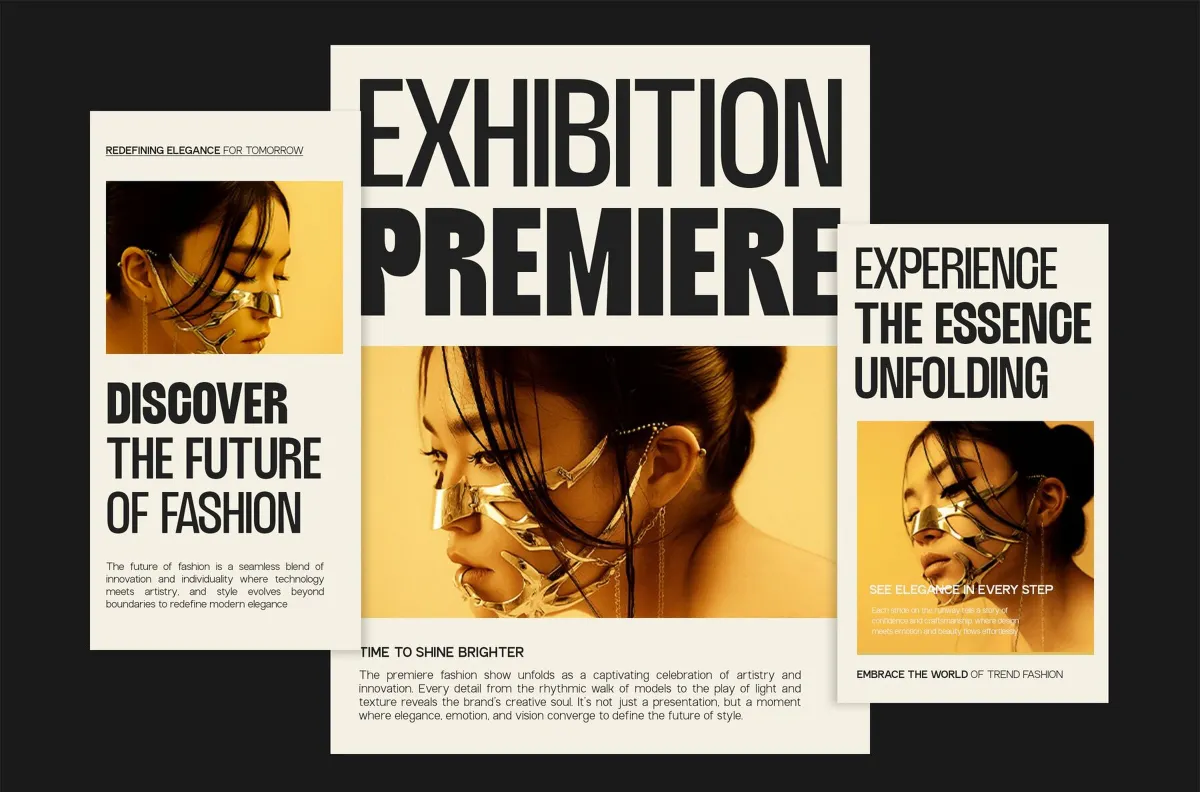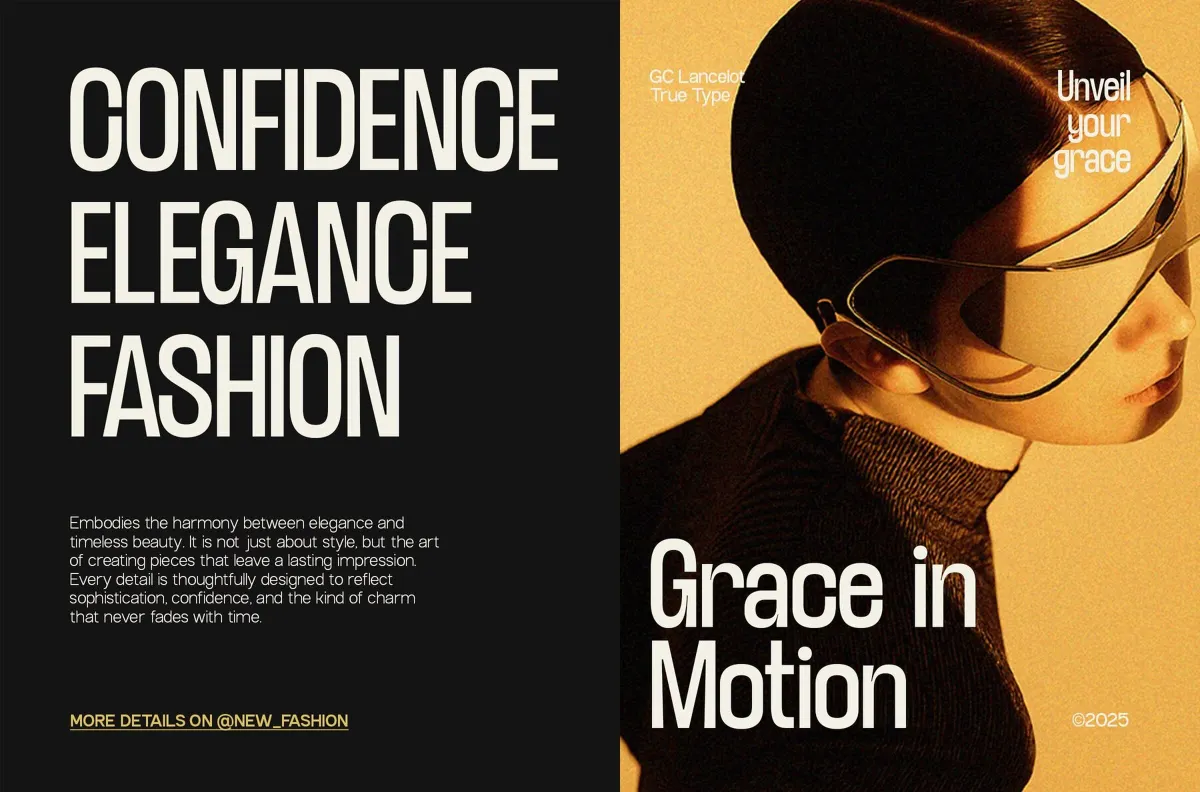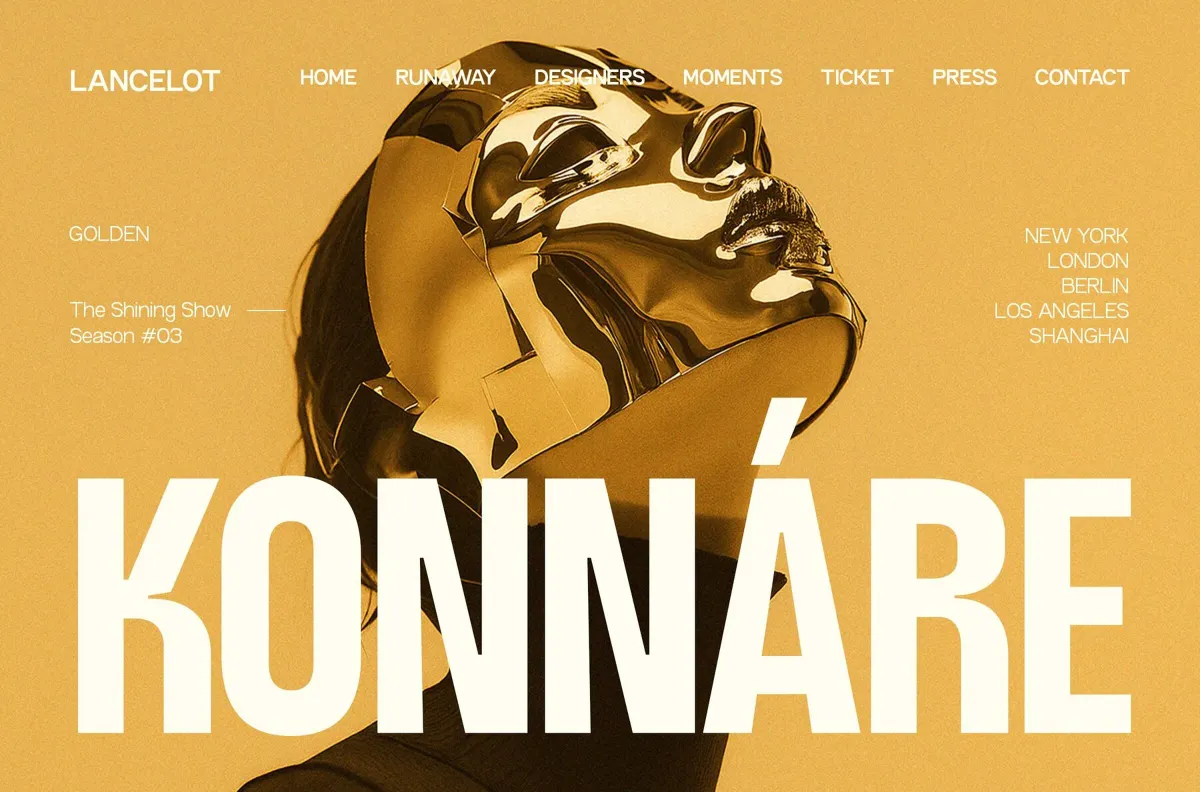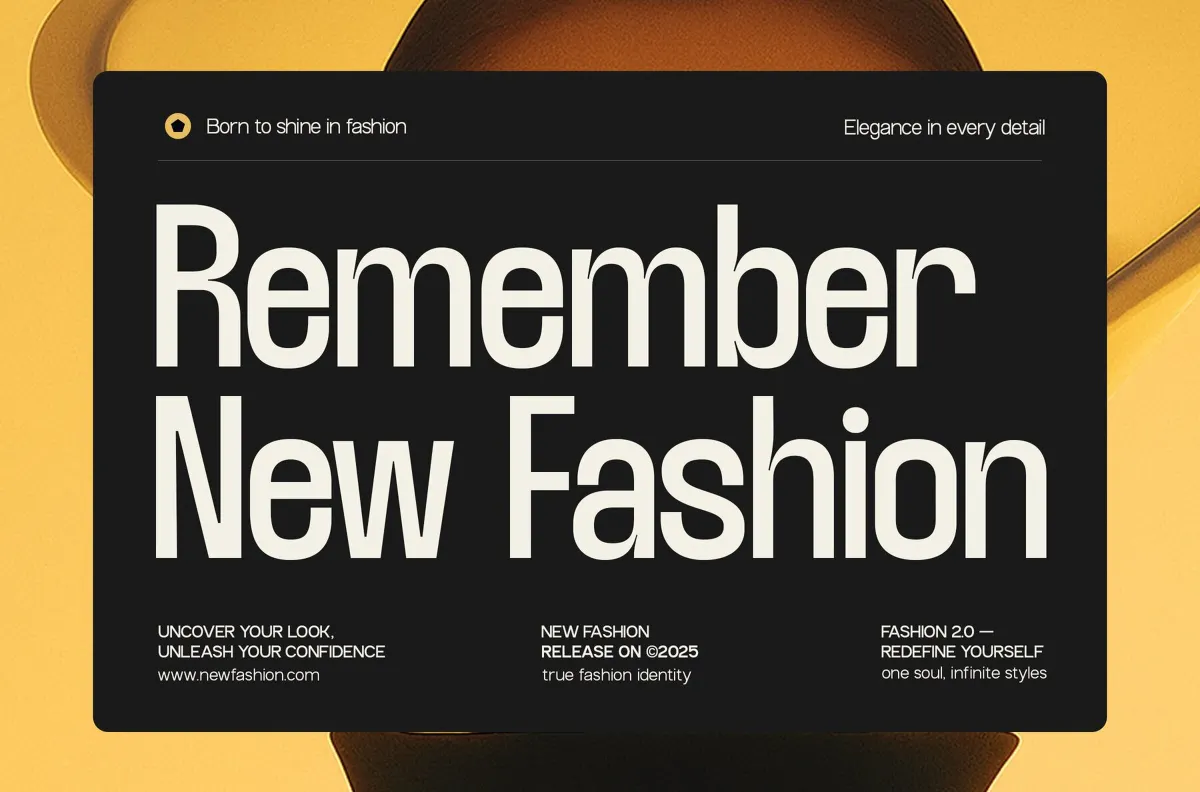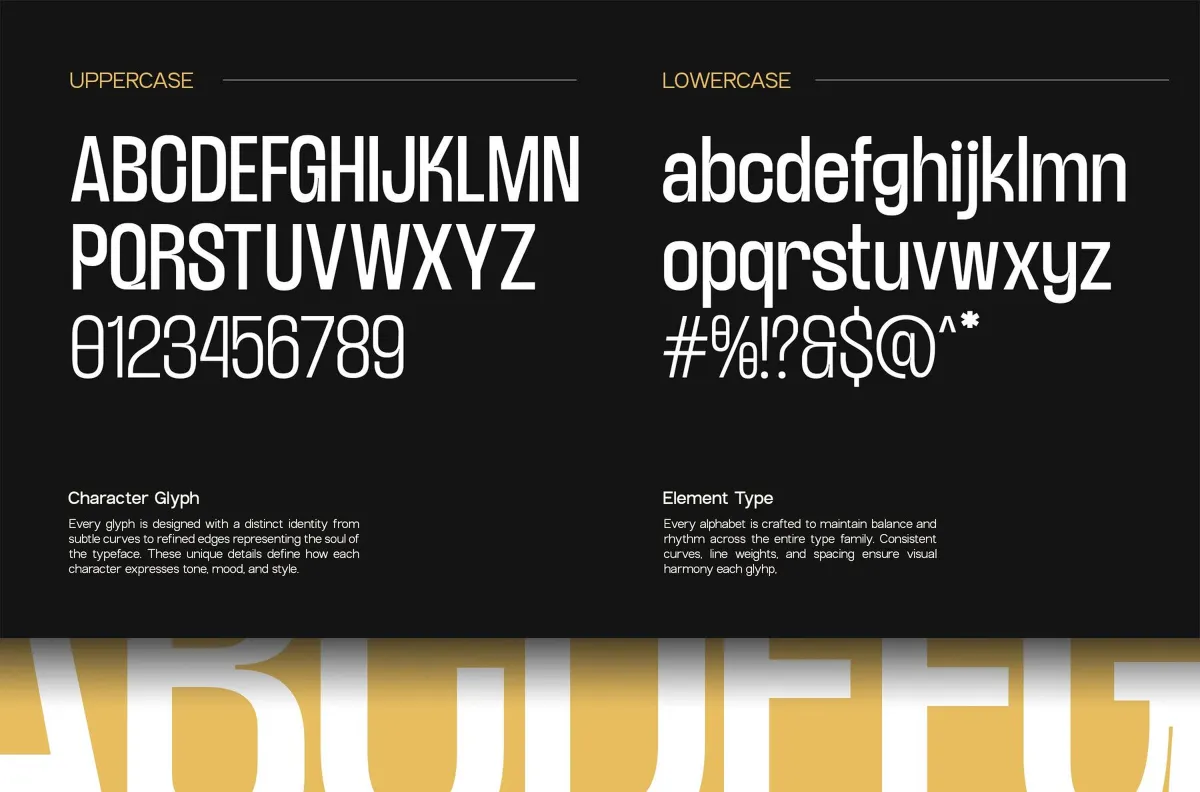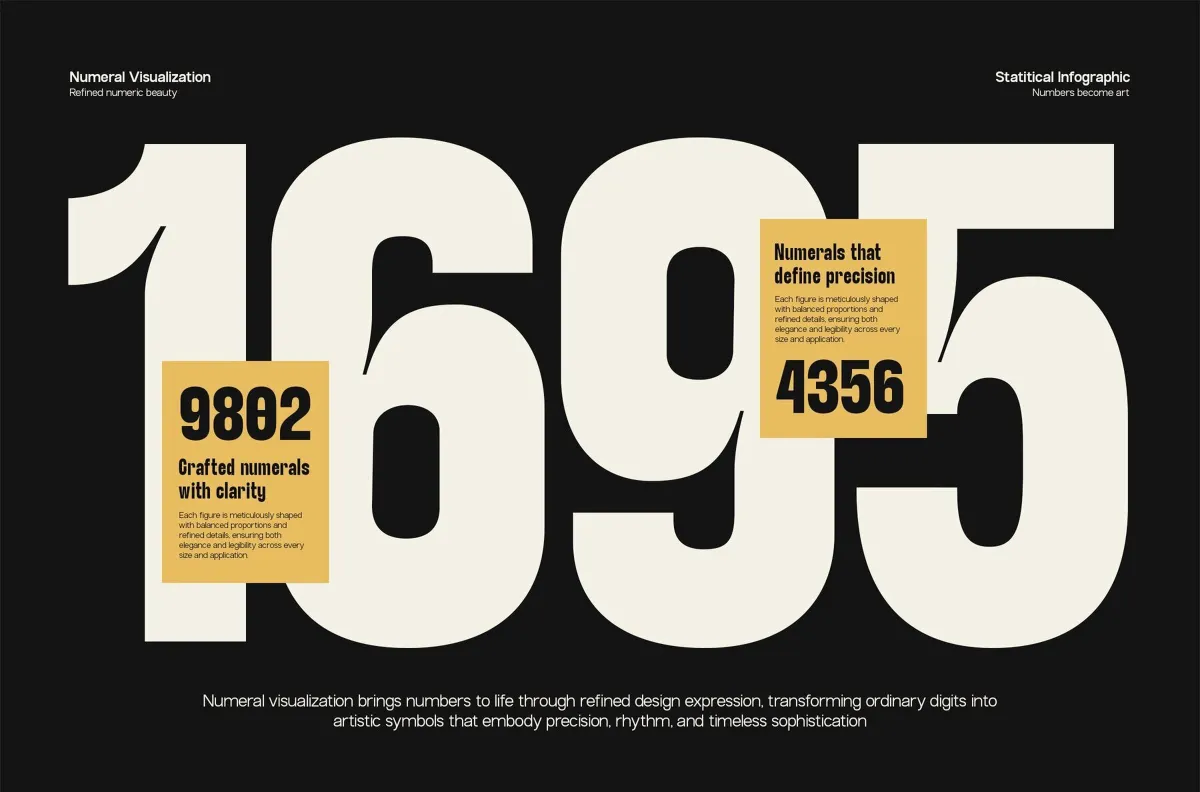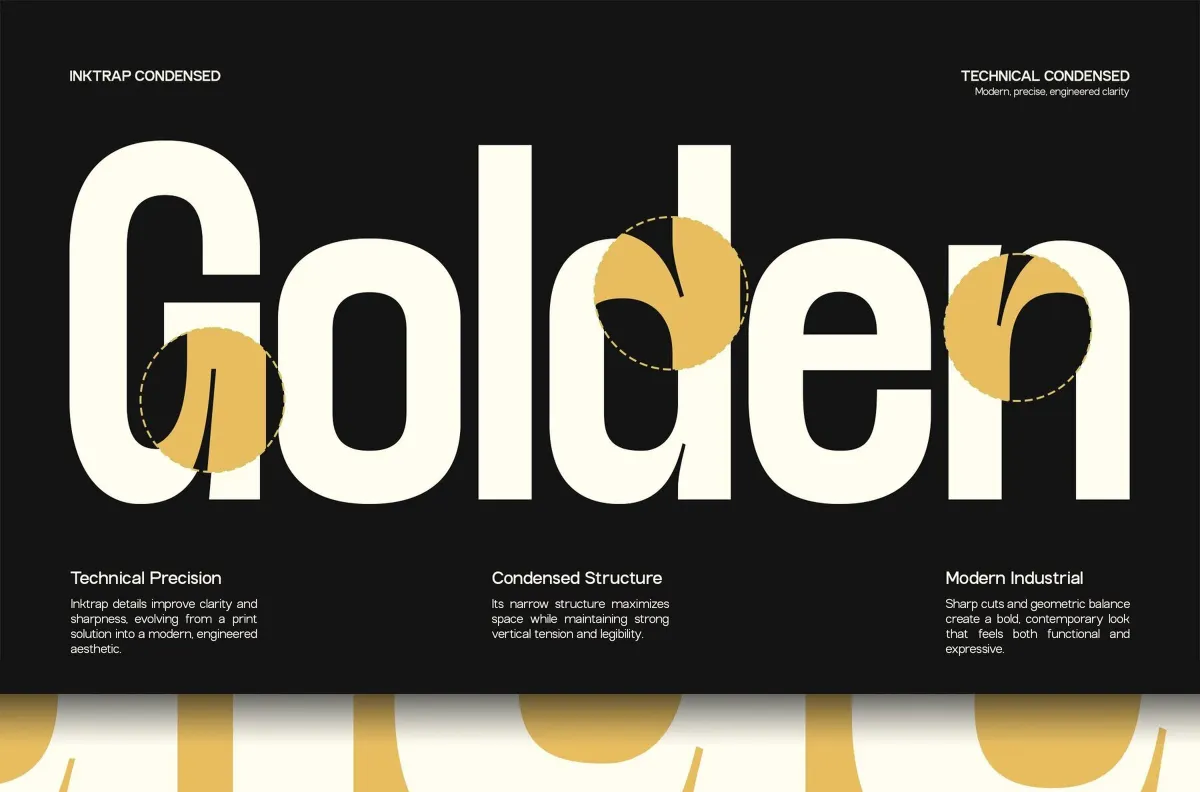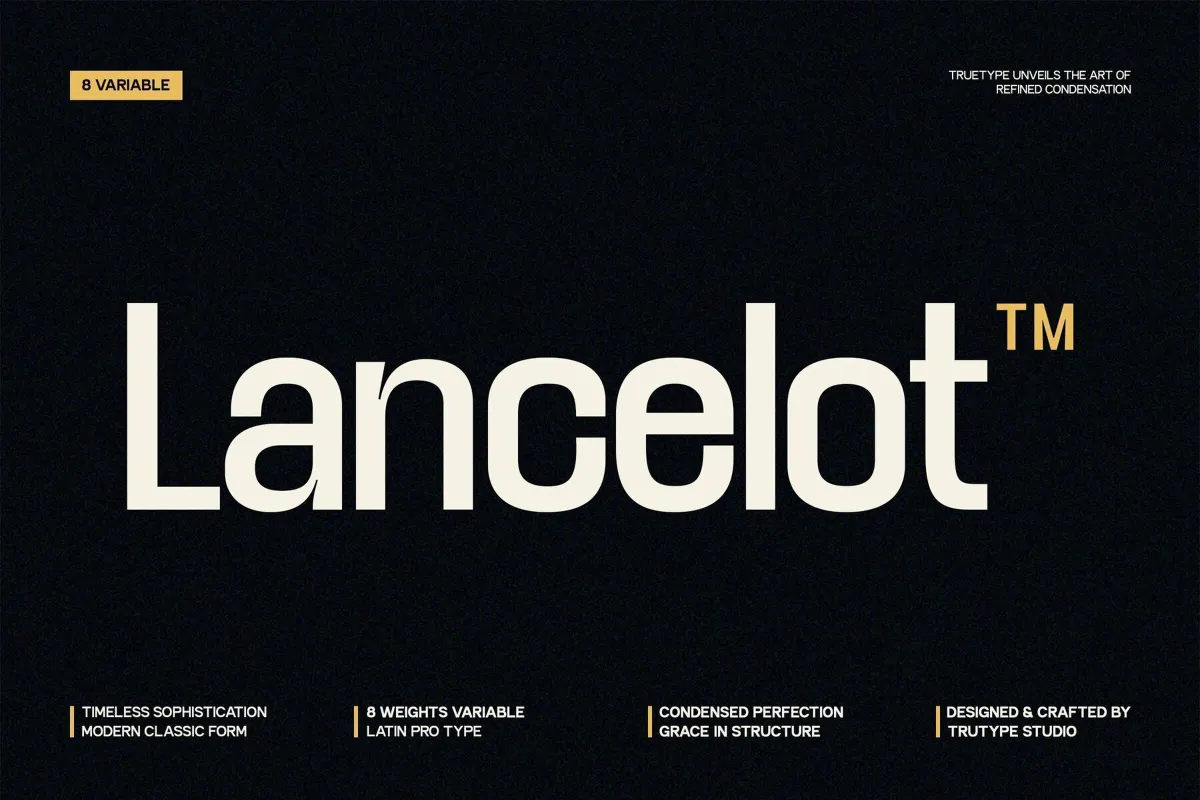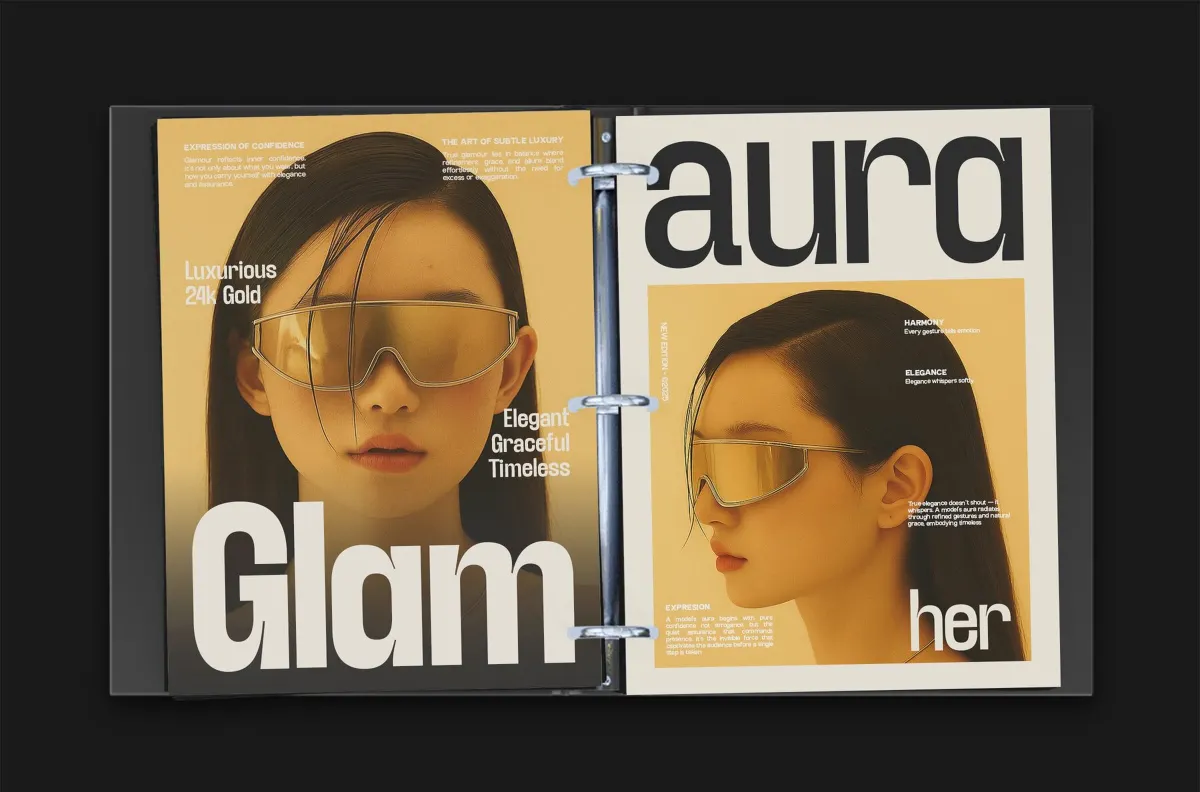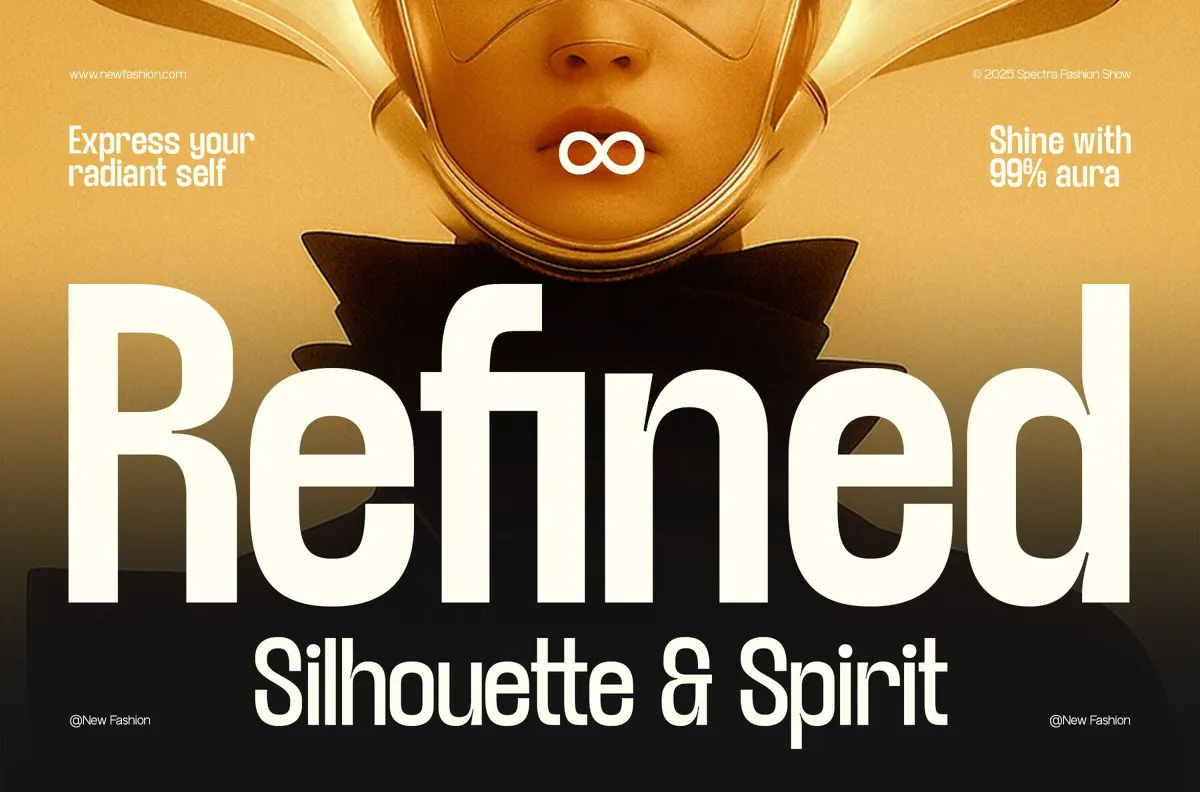
TRT Lancelot - Condensed Sans Font
Lancelot builds on tall, narrow proportions with sharp inktrap notches at every joint, made for headlines that need to stand up straight in tight spaces. Eight weights cover the full range from a hairline Thin through a dense Extra Bold, and a variable font file carries that same range in one file.
Two stylistic alternate sets soften the a and g, along with looser forms for B, G, K, P, Q, and R, for headlines that want a touch less rigidity. Use it for branding, editorial headlines, advertising, posters, packaging, and web or UI design.
- 8 styles: Thin, ExtraLight, Light, Regular, Medium, SemiBold, Bold, ExtraBold;
- 1 variable font covering the full weight range;
- Uppercase & lowercase;
- Numerals, punctuation & symbols;
- Stylistic alternates & superscript figures;